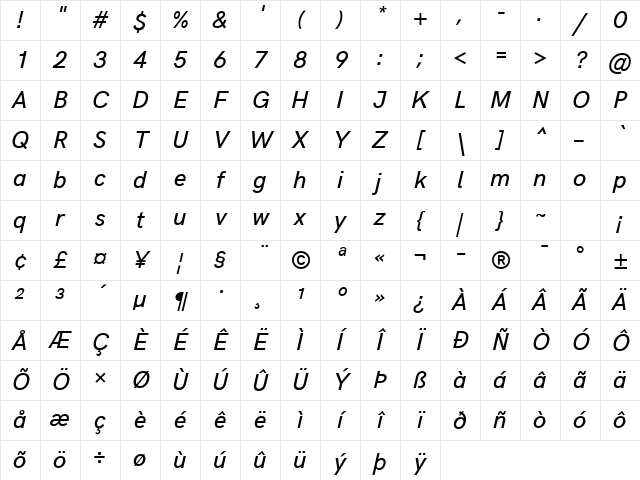
Acari Sans Medium Italic
Foundry: Hanken Design Co.
Designer: Alfredo Marco Pradil and Stefan Peev
Design Context for Acari Sans Medium
Acari Sans Medium is a composed and adaptable typeface that performs quietly and consistently across a wide range of design contexts. The slanted form adds forward momentum and visual energy.
Pro Tip: Use Acari Sans Medium for emphasis, pull quotes, and subheadings where its slanted energy can add rhythm to the layout.